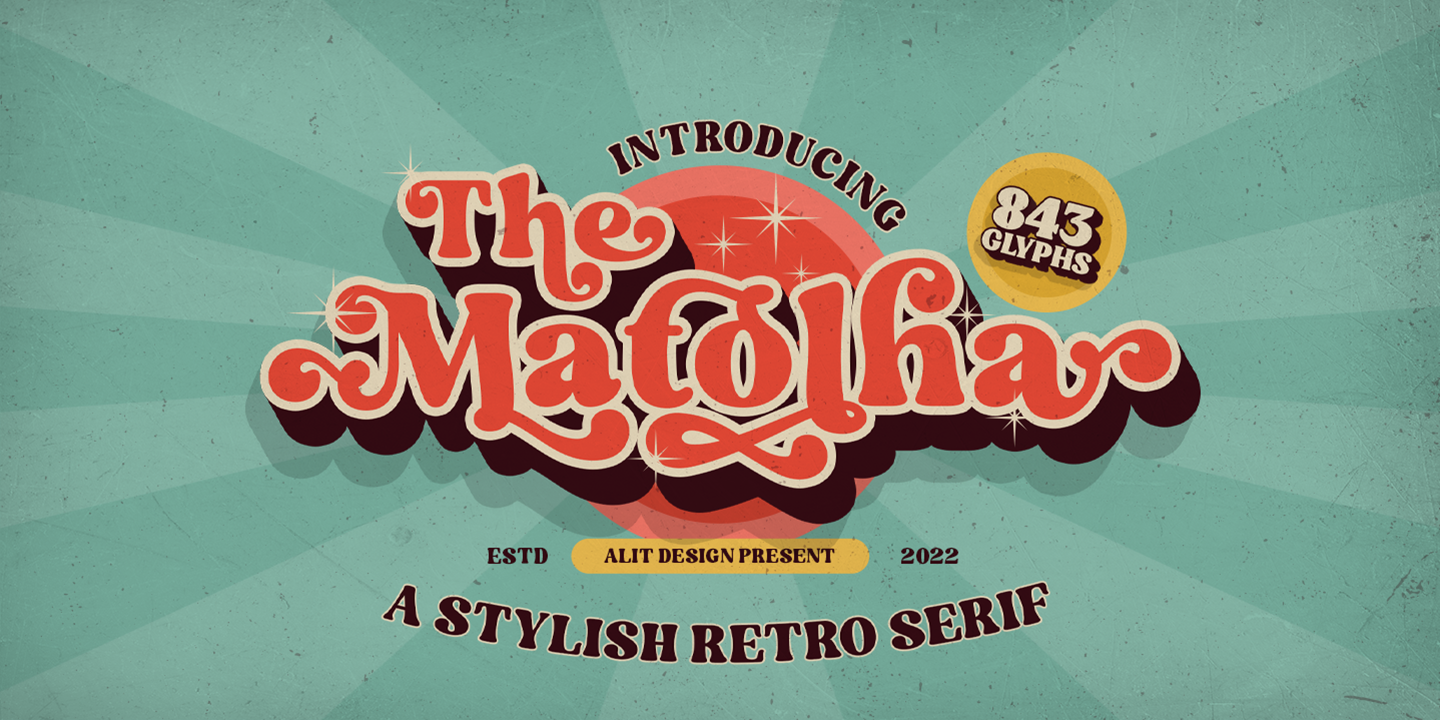
Matolha Font is ideal for African cultural centers, traditional textile businesses, indigenous craft workshops, cultural heritage museums, African art exhibitions, traditional storytelling events, ethnic music festivals, African diaspora celebrations, tribal art galleries, traditional pottery studios, cultural preservation organizations, and authentic African artistic expression projects.
This font is exciting because it captures the rhythmic beauty and cultural richness of African artistic traditions, featuring organically flowing letterforms that dance with the same natural grace and spiritual energy found in traditional African textiles, pottery patterns, and the ancient storytelling traditions that have preserved cultural wisdom and artistic heritage across generations through the power of visual symbols and rhythmic oral traditions. The culturally inspired character design embodies both the geometric sophistication of traditional African art and the organic beauty of natural forms that inspire African artistic expression, creating typography that feels both authentically rooted in African heritage and universally appealing in its artistic beauty. Each letter pulses with the kind of cultural vitality and artistic spirit that transforms ordinary text into expressions worthy of Africa's magnificent artistic legacy and continuing cultural contributions.
The Matolha Font family includes regular and bold weights with complete character sets featuring culturally-inspired numerals, artistic punctuation marks, and decorative elements reminiscent of traditional African patterns, textile designs, pottery motifs, and indigenous artistic symbols. Advanced versions may offer additional stylistic variants with enhanced cultural effects, alternate characters that reflect traditional African artistic practices, and ornamental elements that celebrate the rich heritage of African art, music, and storytelling traditions.
Whether you're developing African cultural branding, creating heritage celebration materials, or designing authentic cultural educational content, Matolha Font Free Download provides the cultural authenticity and artistic vitality your project needs to honor African artistic traditions while celebrating the continuing influence of African culture on global art and design. This typeface transforms ordinary text into cultural expressions that bridge traditional African heritage with contemporary artistic appreciation. The font's cultural character makes it perfect for organizations and projects that celebrate African heritage and promote cultural understanding. African culture enthusiasts and heritage preservation advocates will appreciate how this font brings authentic African artistic tradition to their work with its genuinely cultural and artistically inspired character that honors Africa's magnificent creative legacy.